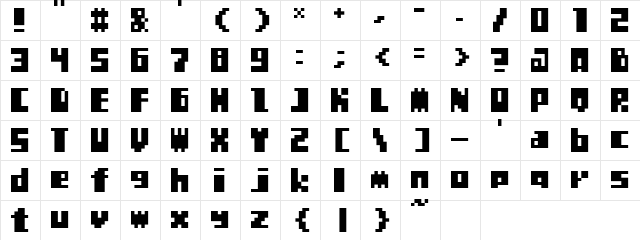
ETBoogieBlocks Regular
Design Context for ETBoogieBlocks Typeface
ETBoogieBlocks is a composed and adaptable typeface that performs quietly and consistently across a wide range of design contexts.